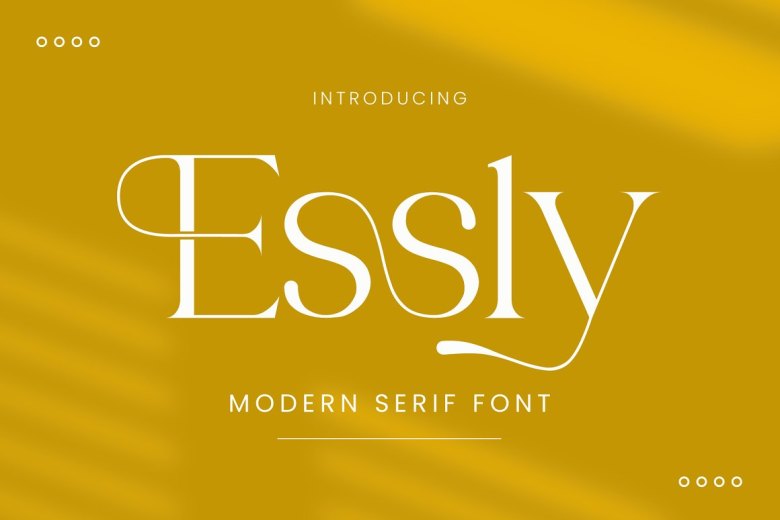
Essly Font
Essly Serif is an elegant, smooth, and sophisticated serif font. With its beautiful design and elegant ligatures and alternations features, Essly Serif makes for a fantastic companion in any project from invitation cards to corporate logos to movie titles to business card titles to brand logos – it can even make for invitation cards!
Ideally suited to invitation cards as well as corporate logos and film titles and movie name books! Ideal for use as invitation card font, movie title font for film titles books, business card, titles, brands logos etc! Essly Serif can also be described as soft serif font that exudes elegance & sophistication; making it an indispensable partner in every project!
Essly Serif Font